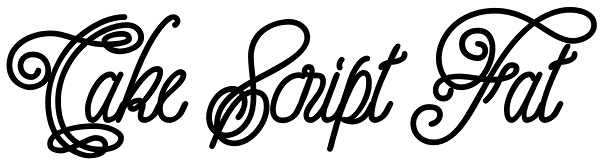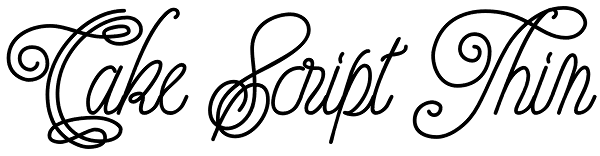
Cake Script
Cake Script is the script that is used on birthday cakes, or at least it is what I think should be used on those cakes. I give you two weights for the price of one font. Your designer with a sweet tooth, Gert Wiescher
Cake Script Fat
Cake Script Thin